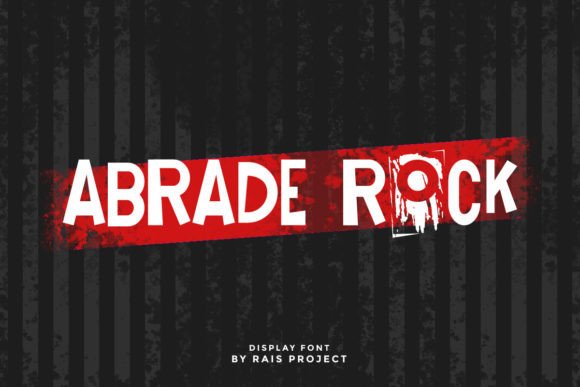
The Rockstar Font That Stole My Heart: Abrade Rock Font
I still remember the design project that led me to discover Abrade Rock Font. I was working on a band’s promotional materials, and I needed a font that would capture the essence of rock music. I tried countless fonts, but none seemed to fit the bill. That was until I stumbled upon Abrade Rock Font. Its unique, edgy style instantly resonated with me, and I knew I had found the perfect fit. In this article, I’ll share my experience with Abrade Rock Font, its features, and how to make the most of it in your designs.
- ✨ Unique Style: Abrade Rock Font has a one-of-a-kind style that’s perfect for artists, musicians, and anyone looking to add an edgy touch to their designs.
- 🎨 Versatile: Abrade Rock Font is perfect for a wide range of design projects, from business cards to posters, and even custom designs.
While Abrade Rock Font is an amazing font, there are a few things to keep in mind:
- ⚠️ Legibility: Some of the glyphs and ligatures can be a bit tricky to read, especially at smaller font sizes.
- 🤔 Pairing: Abrade Rock Font can be a bit challenging to pair with other fonts, so be sure to experiment and find the perfect combination.
The Designer Inspiration Behind Abrade Rock Font
Abrade Rock Font was inspired by the raw energy of rock music and the creative expression of artists. The font’s designer wanted to create a font that would capture the essence of rock culture and provide designers with a unique tool to express themselves.
| What is Abrade Rock Font? | Abrade Rock Font is a display font with a special style inspired by band rock and the music industry. |
| Is Abrade Rock Font easy to read? | Abrade Rock Font can be a bit challenging to read, especially at smaller font sizes, but it’s perfect for display purposes. |